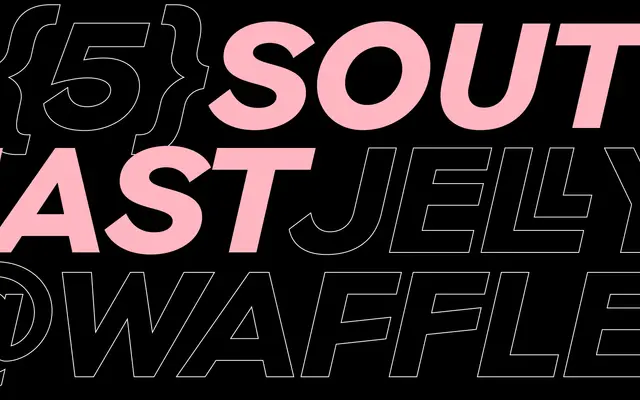
South East Expanded
Playtype
South East Expanded specimen from Playtype
An expanded-width sans from Copenhagen foundry Playtype, suited to display and headline use.
South East Expanded sits in Playtype's catalogue as a wide-set sans designed for display settings where horizontal presence is needed. The page content offered no detailed specimen or weight information, but the expanded designation suggests it is optimised for headlines and large-scale applications. Playtype are known for clean, Scandinavian-influenced type design with an eye on editorial and identity work.
The name indicates an expanded width variant; without further classification detail from the page, it is placed as a sans-serif based on Playtype's general catalogue style and the expanded designation in the name.